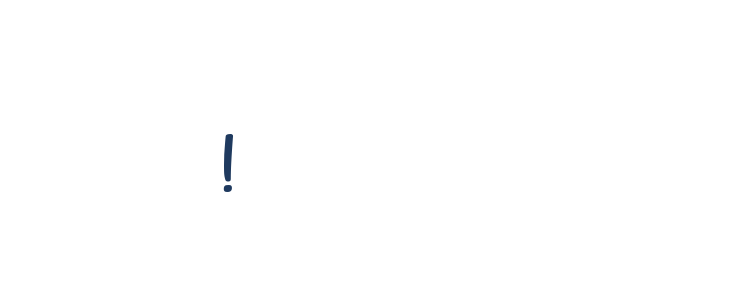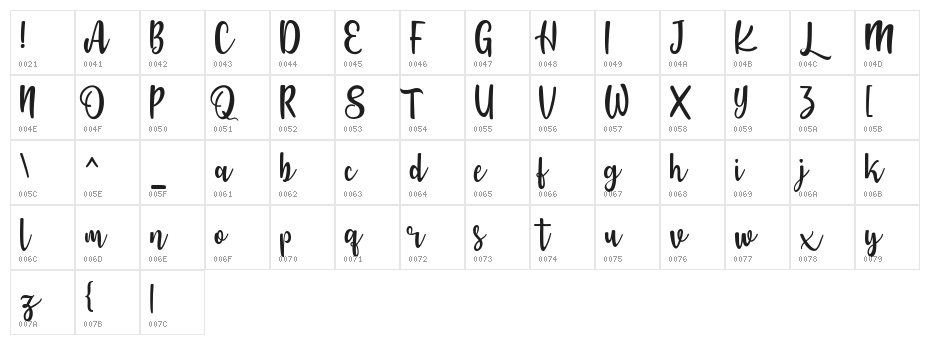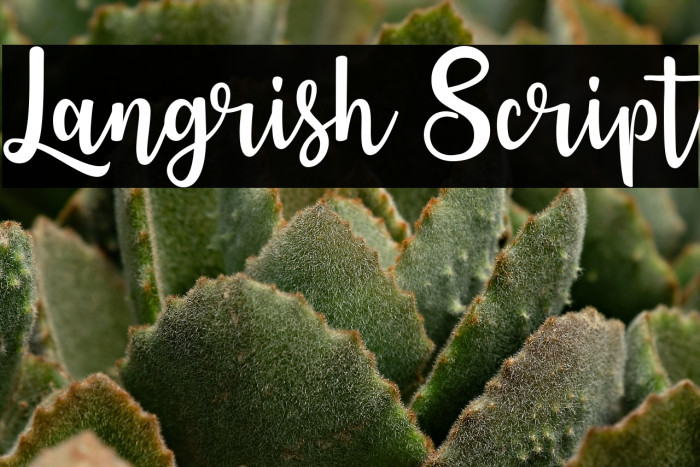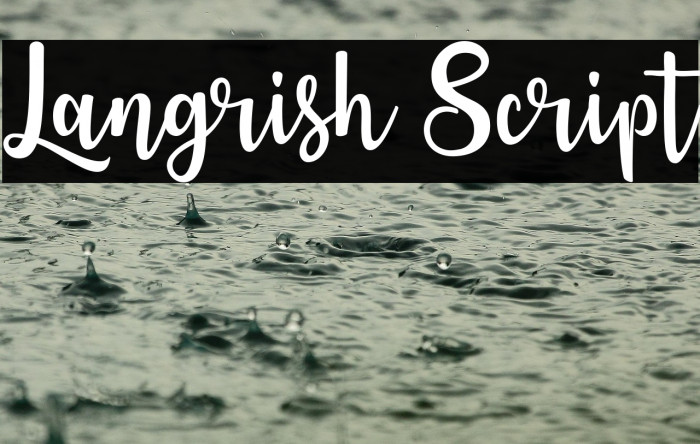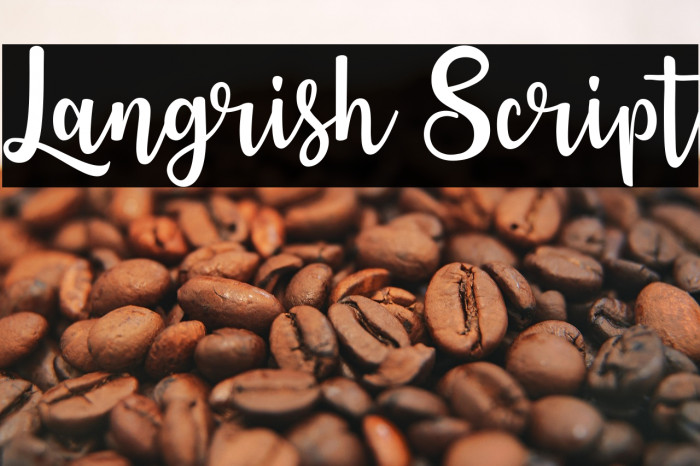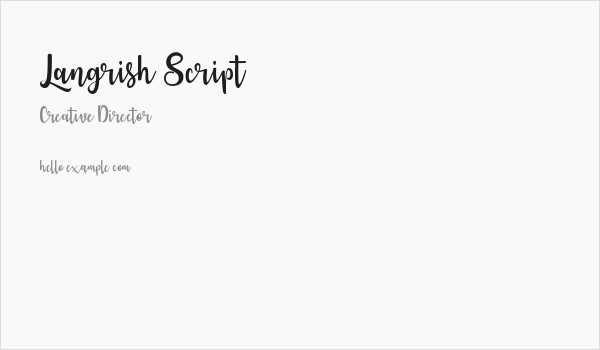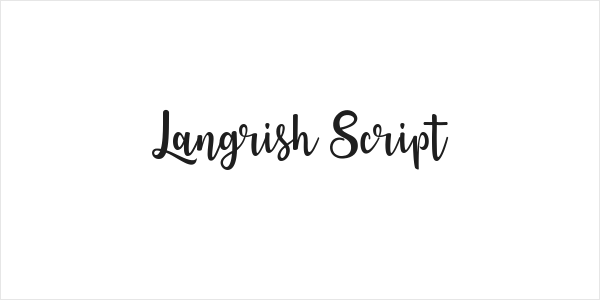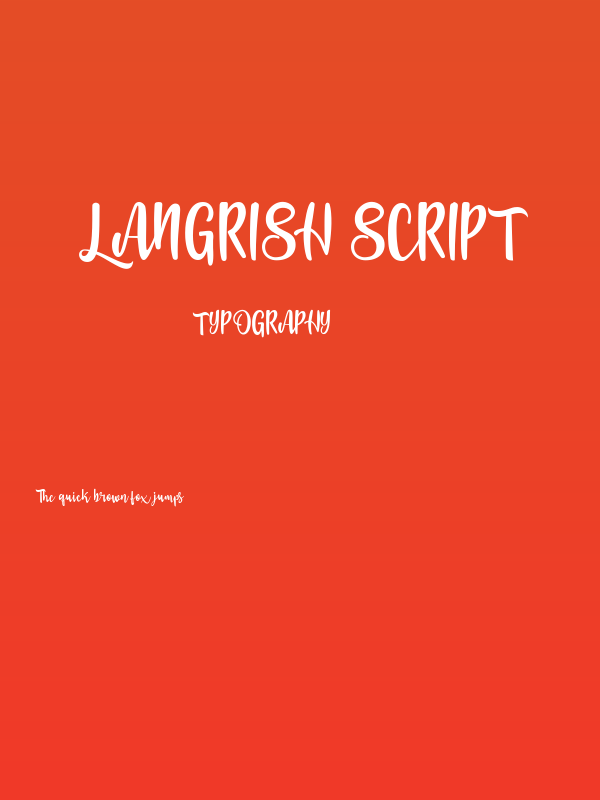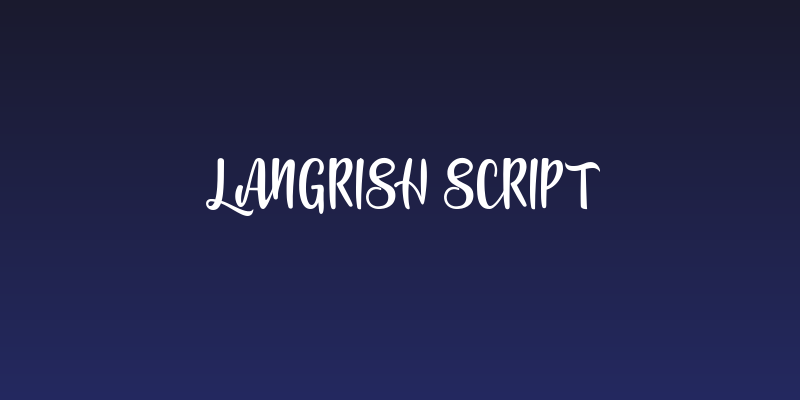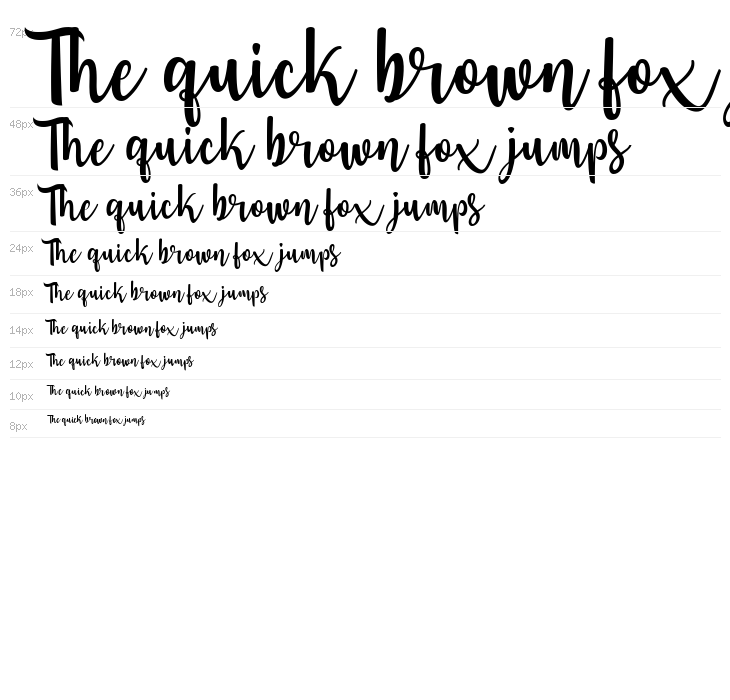
Langrish Script Font
Langrish Script Description
This font features a lively and expressive script style, characterized by its flowing, cursive letterforms. The uppercase letters are bold and dynamic, with a playful yet elegant appearance. The lowercase letters maintain a consistent fluidity, enhancing the overall cohesiveness of the design. The strokes are thick and confident, providing a strong visual impact. The font's playful curves and loops add a touch of whimsy, making it suitable for creative and informal applications. Its handwritten quality gives it a personal and approachable feel, perfect for projects that require a touch of personality and flair.
| Use Case | Logos, Headlines, Invitations |
| Proposed Projects | Ideal for greeting cards, invitations, branding, and social media graphics. |